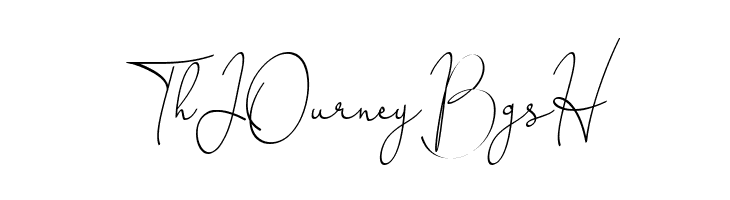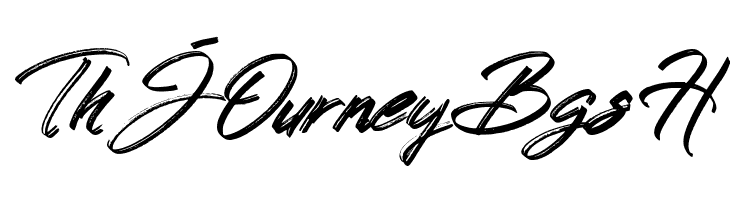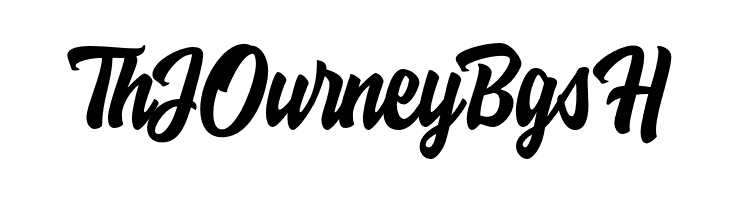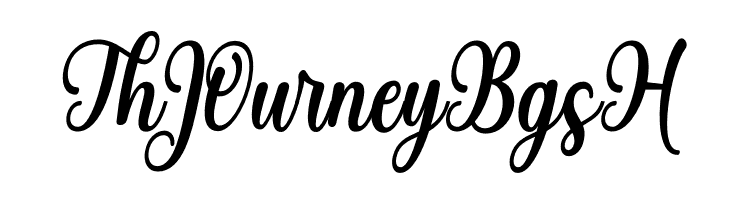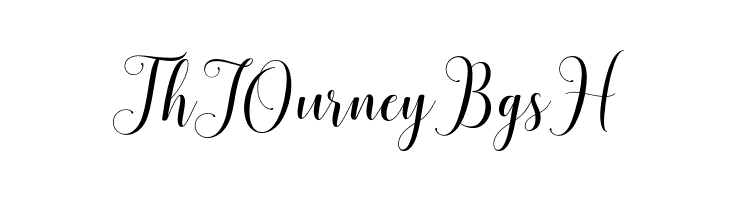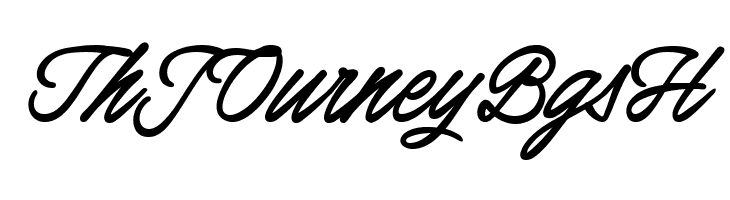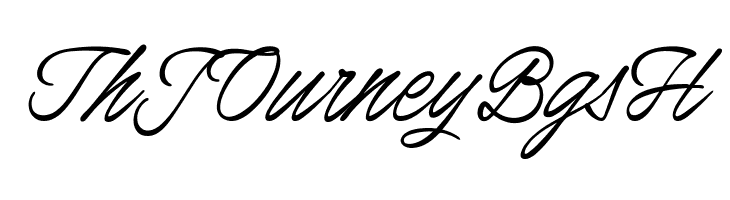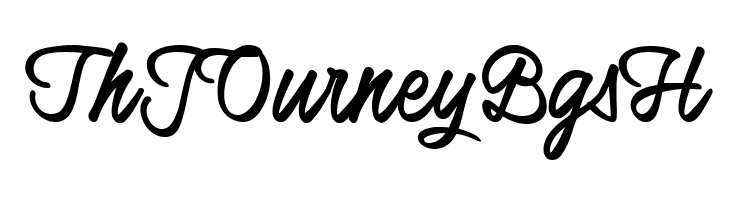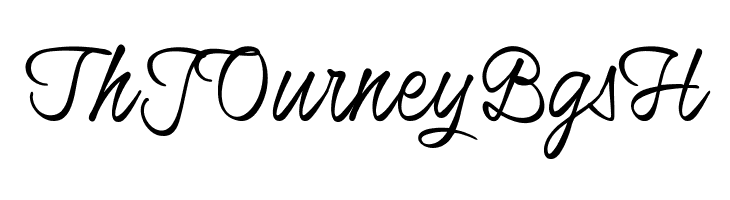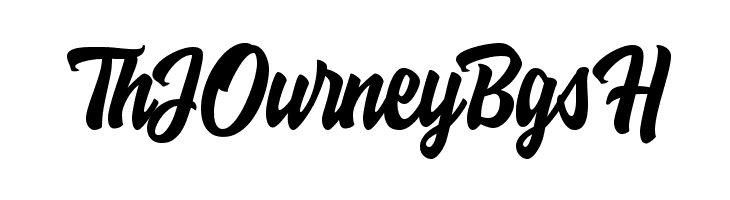
• Honeycomb Script PERSONAL USE Regular
A flowing, elegant script font with interconnected characters and a modern twist.
• Honeymoon Avenue Script
A graceful and elegant script font with flowing, cursive strokes.
• Honeymoon Bold PERSONAL USE
A bold, flowing script font with elegant cursive letterforms.
• Honeymoon PERSONAL USE
A graceful script font with flowing, interconnected letters and elegant flourishes.
• Honeymoon Up Bold PERSONAL USE
A bold, cursive font with interconnected characters and a strong visual impact.
• Honeymoon Up PERSONAL USE
An elegant, flowing script font with smooth, cursive strokes and graceful curves.
• Hong Kong Script Brush
A dynamic brush script font with bold, fluid strokes and a lively, hand-drawn quality.
• honiladdemo
An elegant script font with flowing lines and intricate swashes, perfect for sophisticated designs.
• Hoodson Script Free Demo Regular
A bold, flowing script font with elegant curves and a modern touch.
• Hoodson Script Free Demo Regular
A bold, flowing script font with elegant, cursive letterforms.